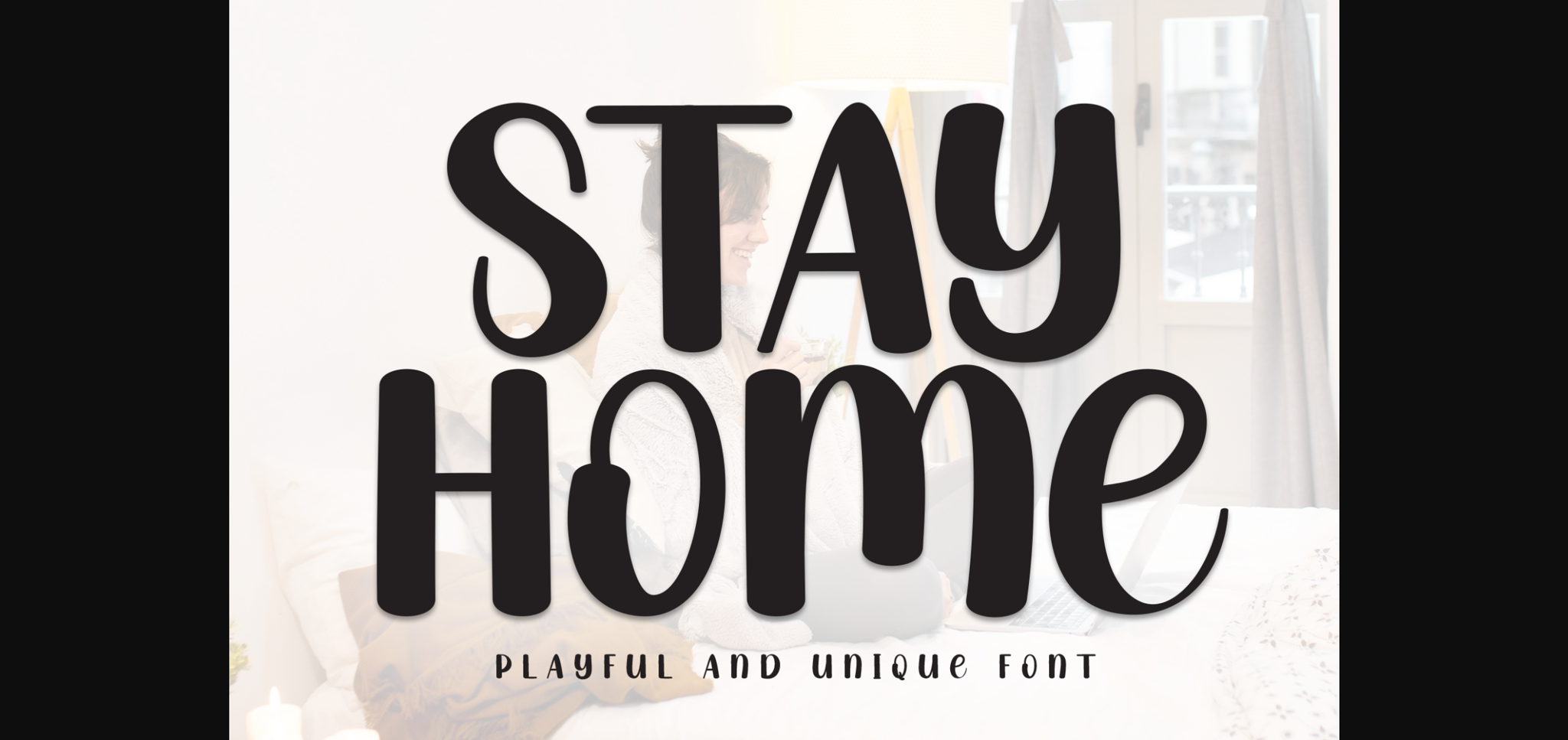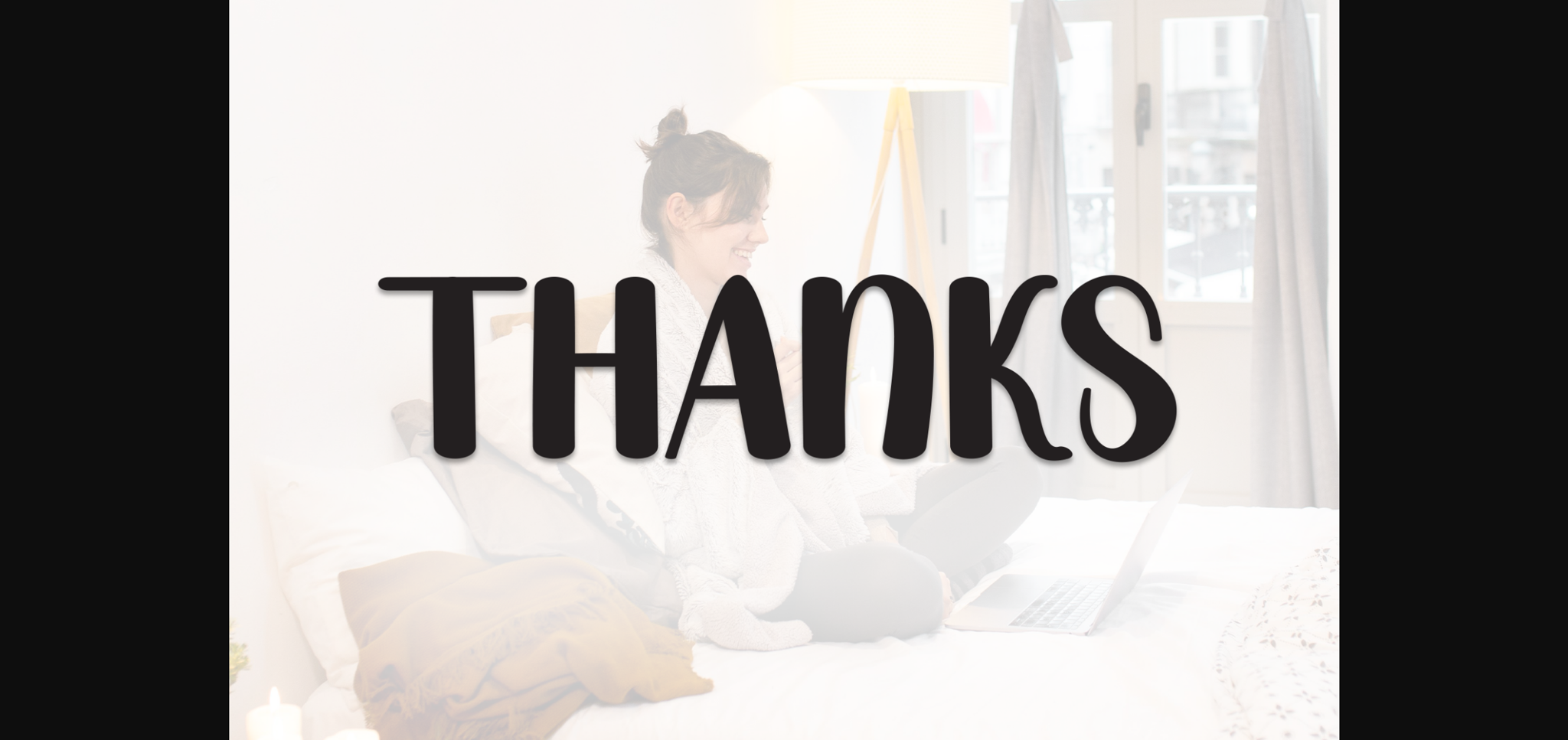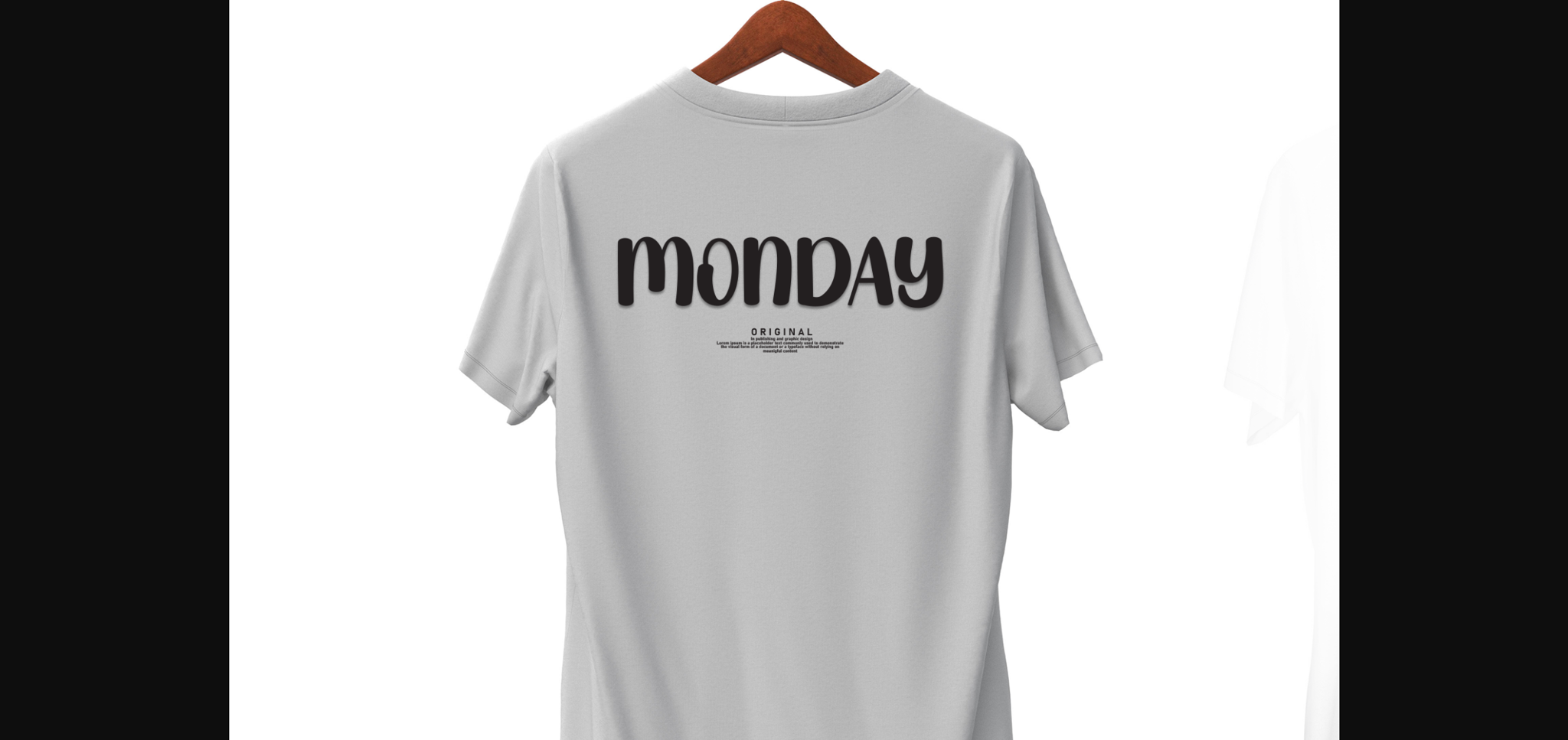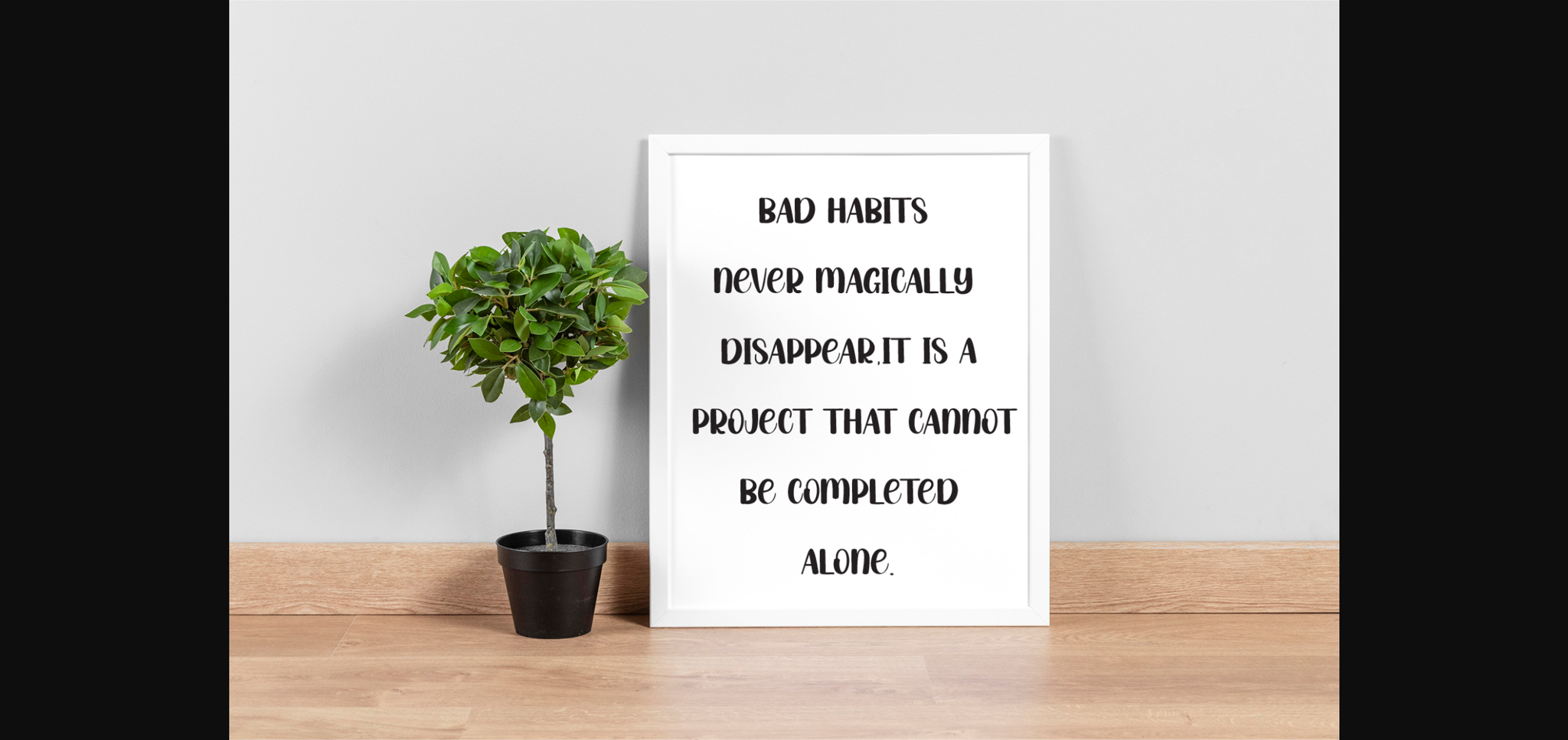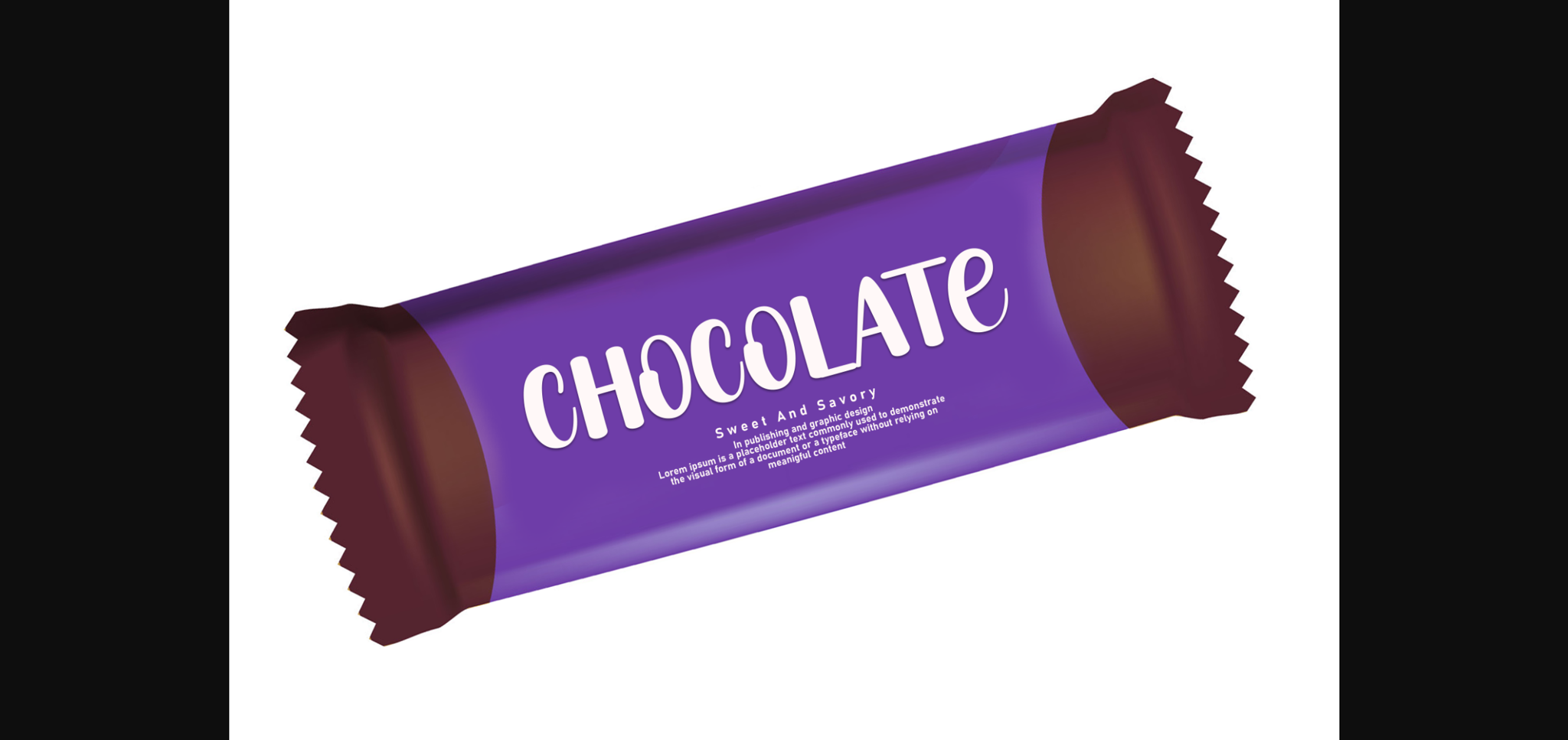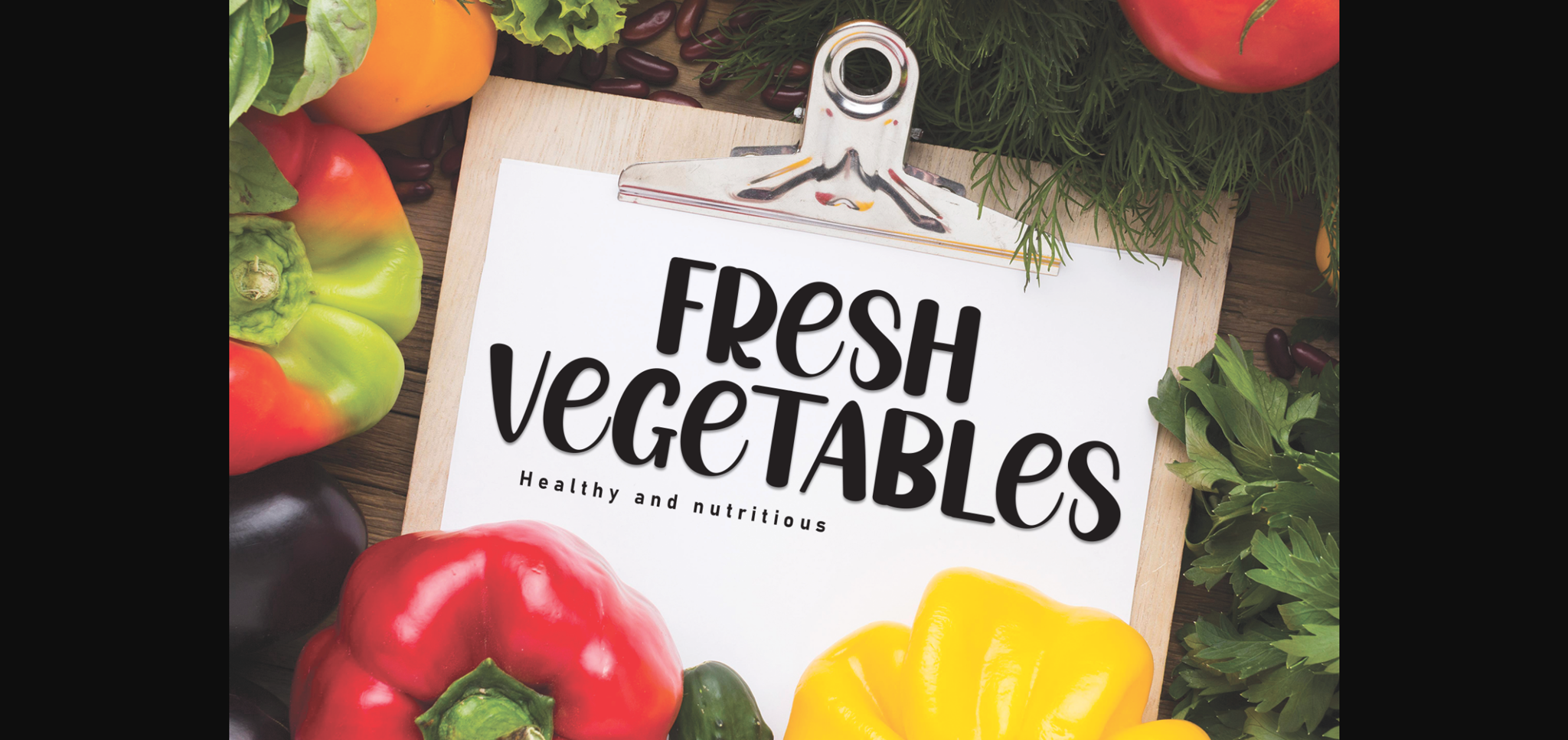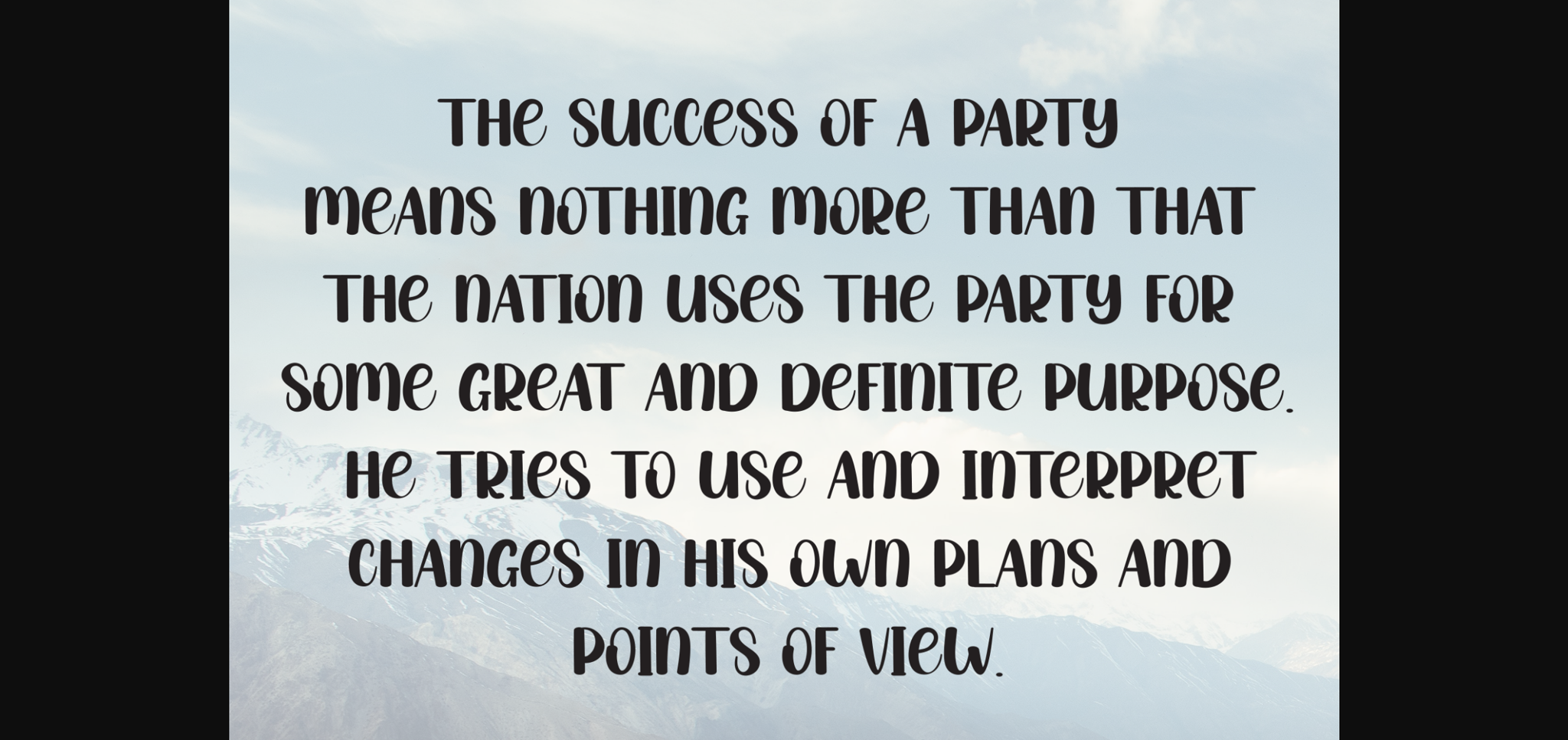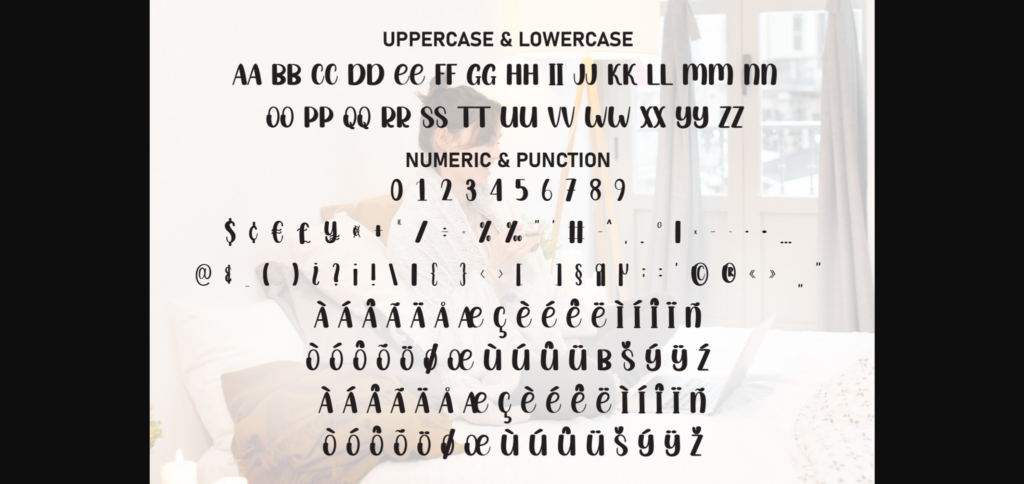
Stay Home Font
About Stay Home Font
Stay Home is a sweet and friendly sans-serif font. Cute and versatile, this font is ideal for writing wedding invitations, cards, or any other design that might need a fun touch!